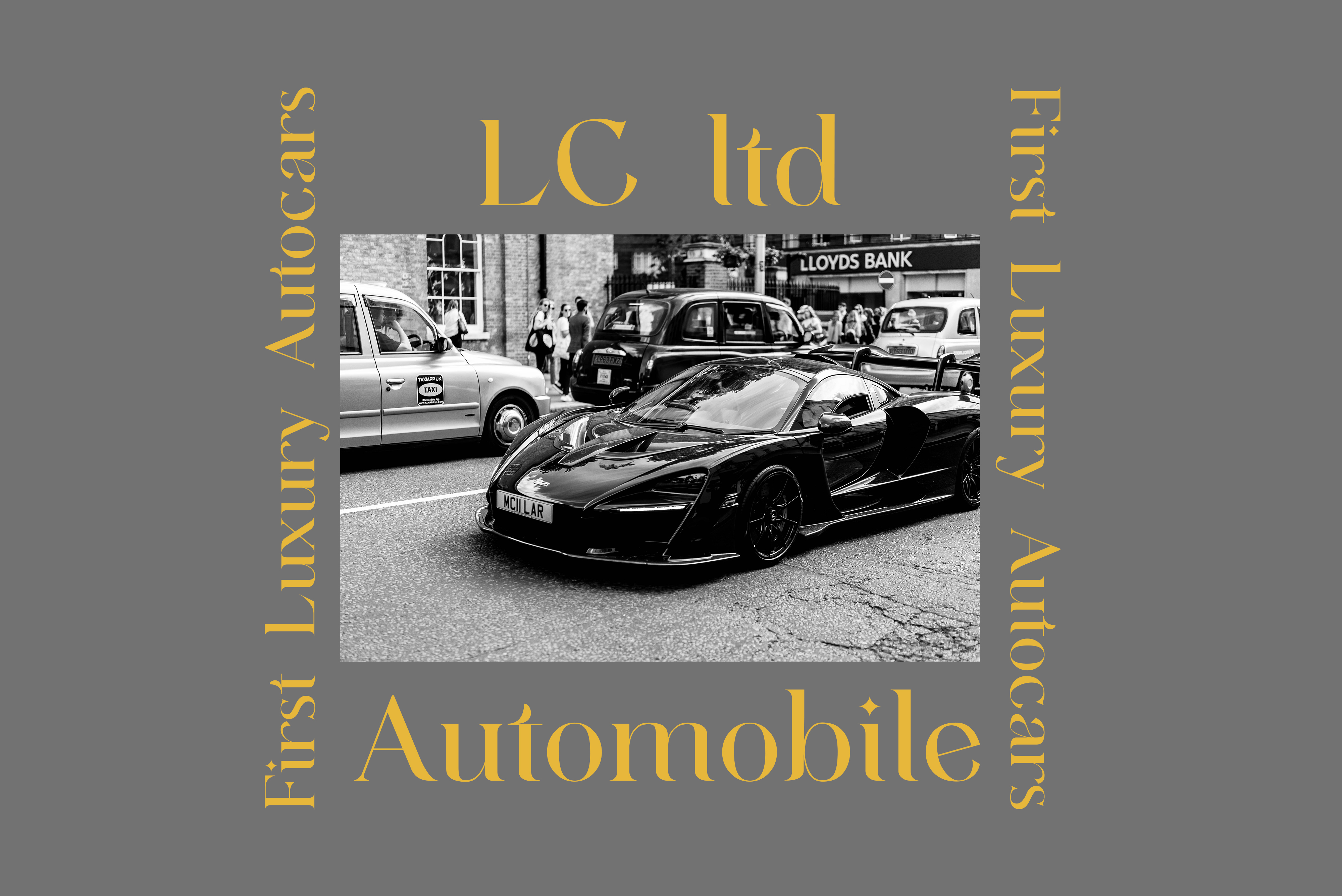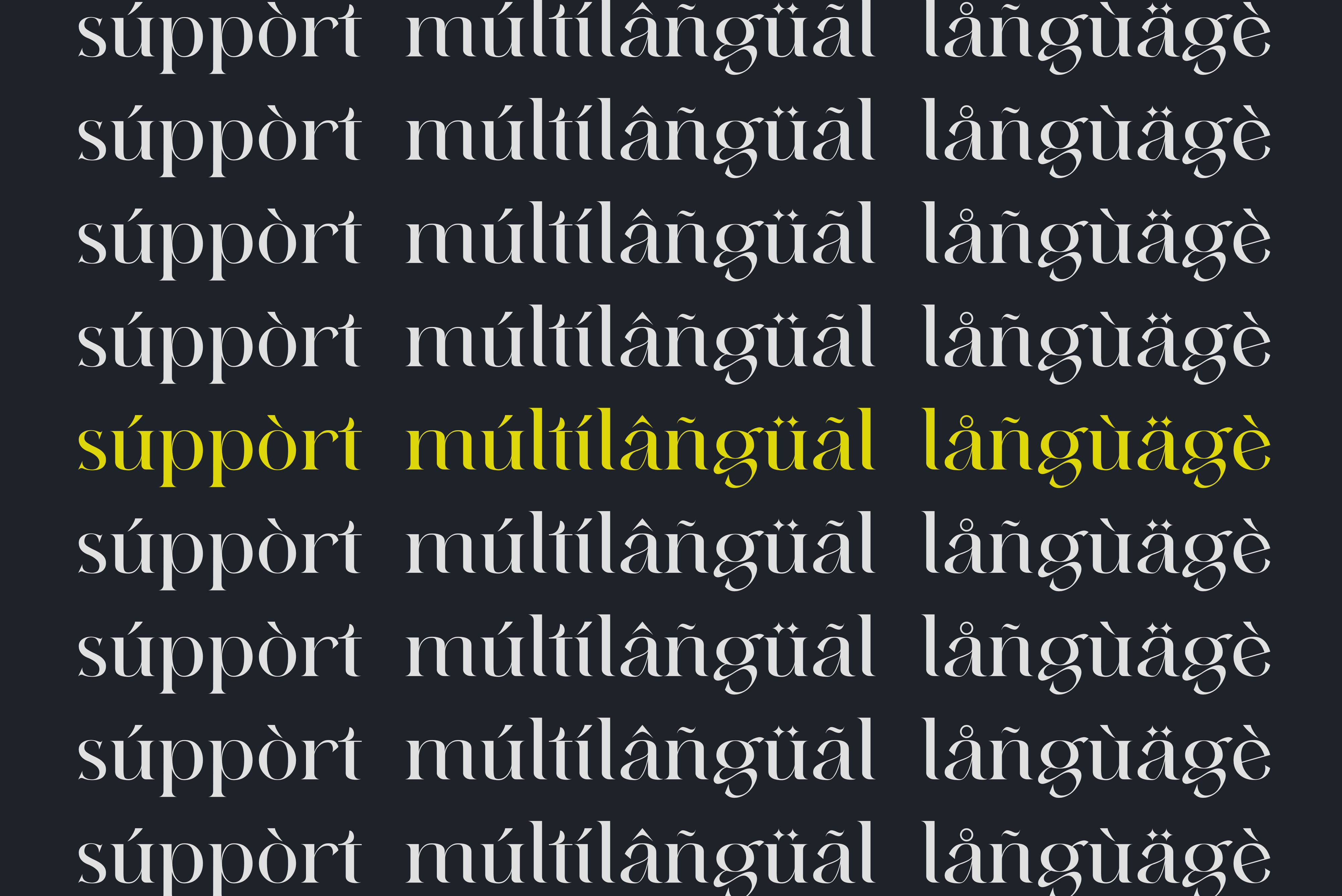
Felixtowe is a unique Modern Serif, elegant font. this font is intentionally made with unique and alternating. This style of hand display makes it perfect for use in all your design projects whether it’s logo, label, packaging design, blog title, poster, wedding designs, social media posts, Instagram design, etc.